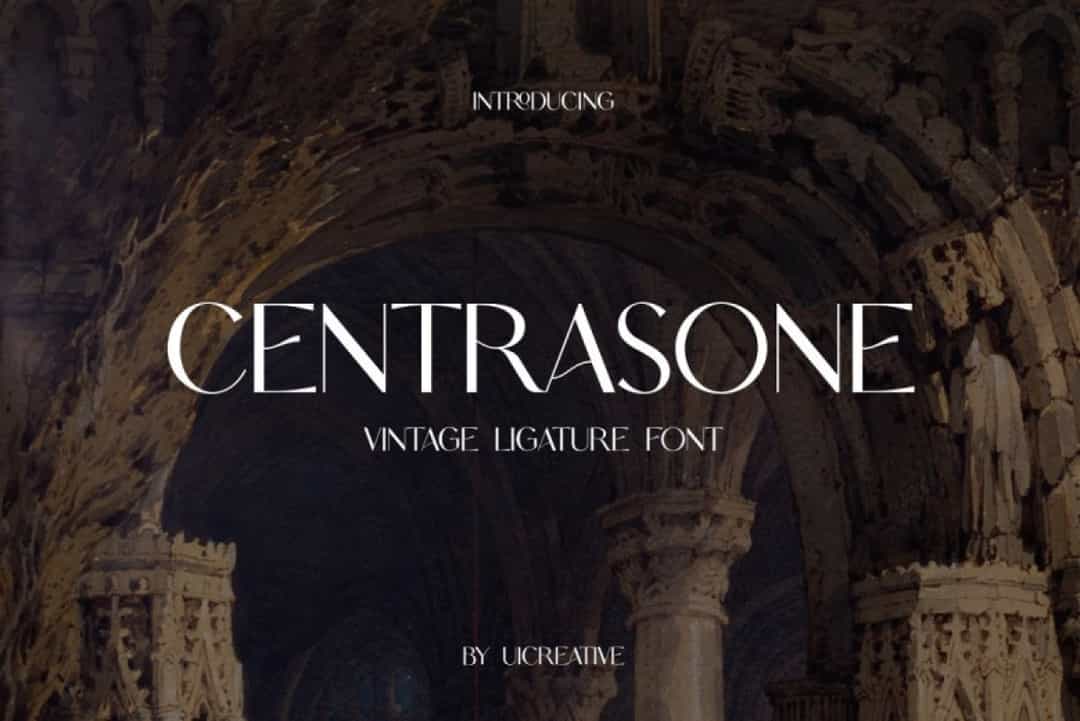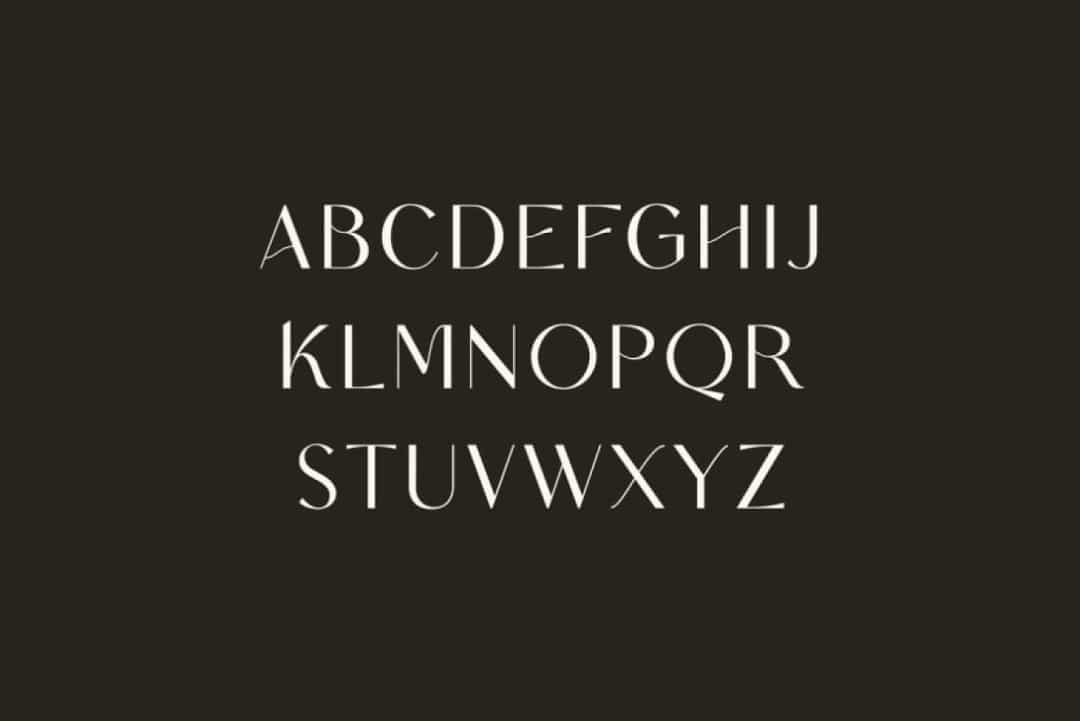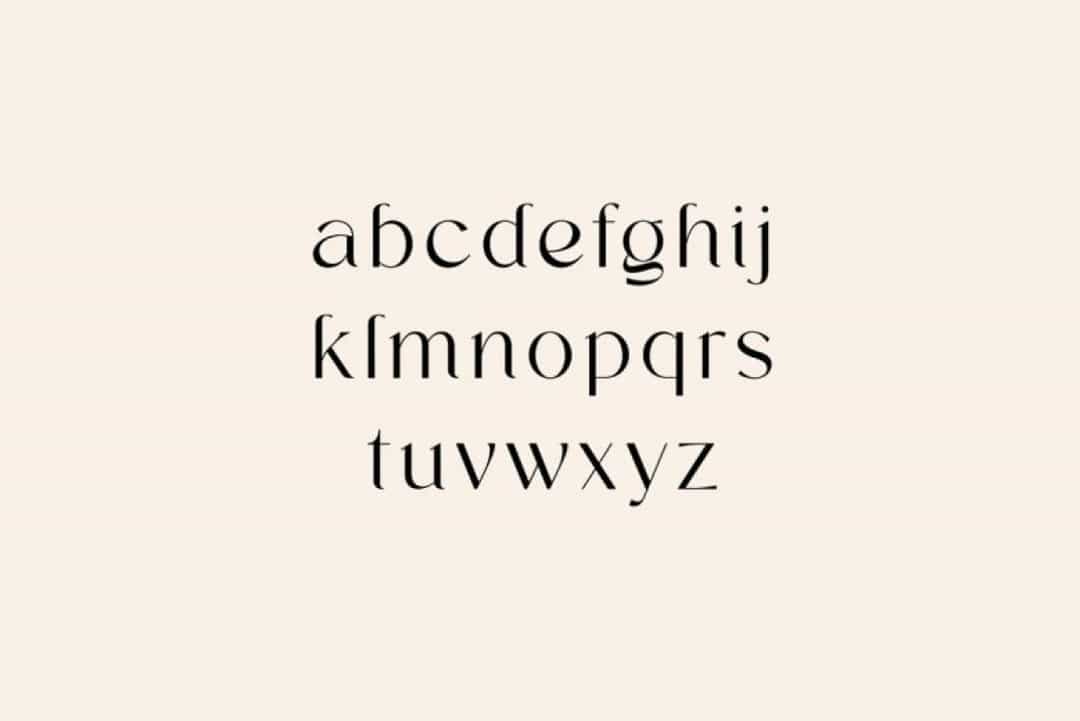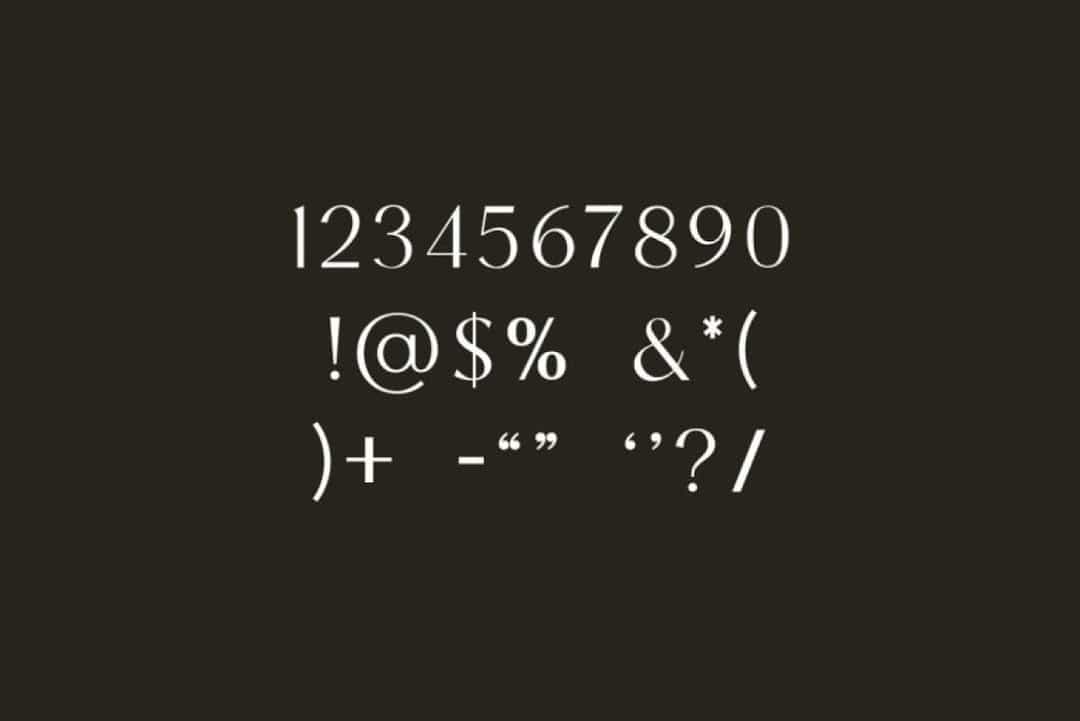
Centrasone can be described as an elegant, classic, and contemporary serif typeface, making it suitable for use across a range of projects including stationary designs, signatures, logos wedding and typography quote covers for book or magazine covers as well as headers on websites for headers for websites as clothing branding or packaging design designs and more.